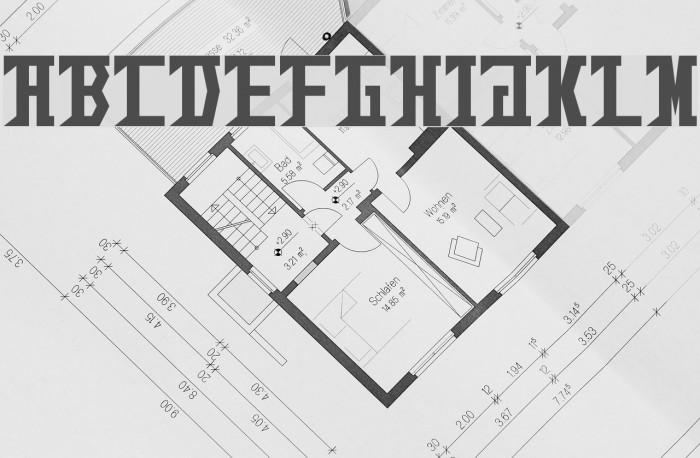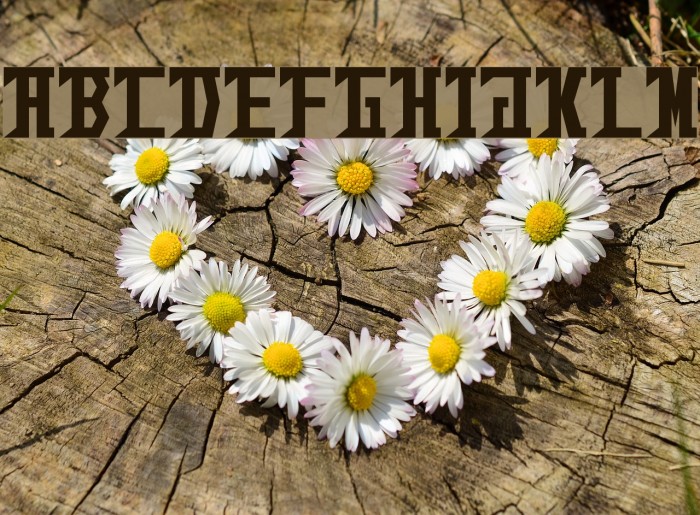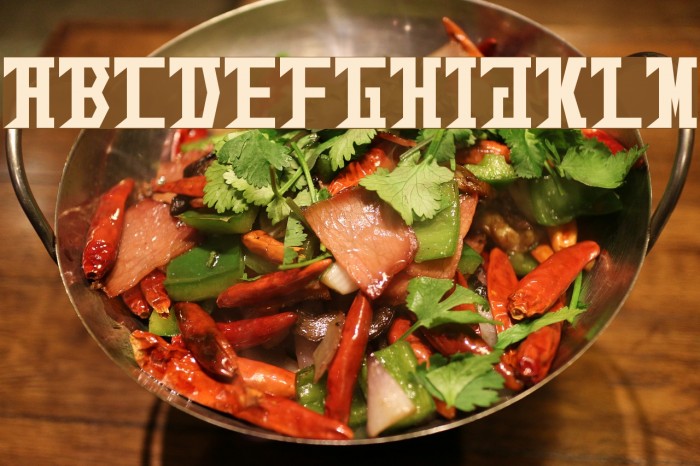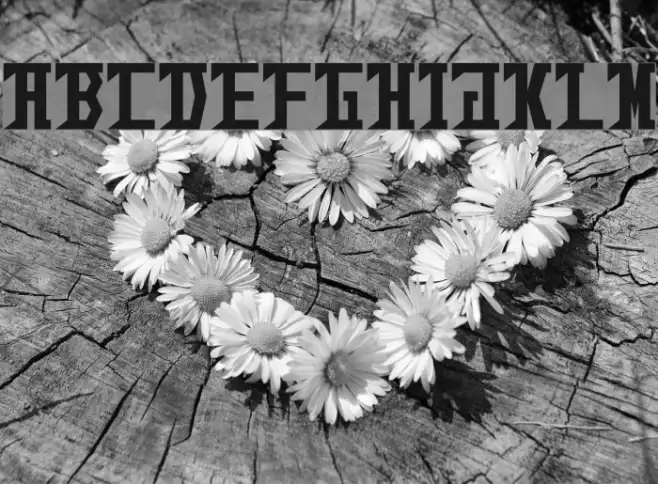
Bad Future Font
This font features a bold and futuristic design, characterized by sharp angles and geometric shapes. The uppercase and lowercase letters maintain a consistent style, with a strong emphasis on vertical and diagonal lines. The numbers and special characters follow the same angular theme, creating a cohesive and striking appearance. The font's unique style makes it suitable for projects that require a modern and edgy look. It stands out with its high contrast and distinctive character shapes, making it ideal for attention-grabbing headlines and logos.
A bold, angular font with a futuristic and geometric style.
- Proposed Projects: Ideal for sci-fi themed designs, video game titles, movie posters, and branding that requires a modern, edgy look.
- Overall Style: Futuristic, Modern